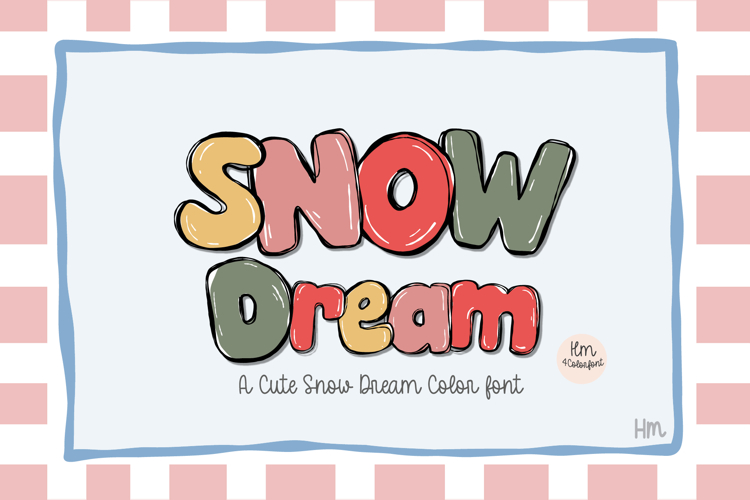
Christmas Cute Snow Color Font
Snow Dream is a cute and playful color font inspired by cozy winter and Christmas vibes.
Each letter looks hand-drawn with soft pastel tones — red, green, and golden yellow — perfect for holiday-themed projects.